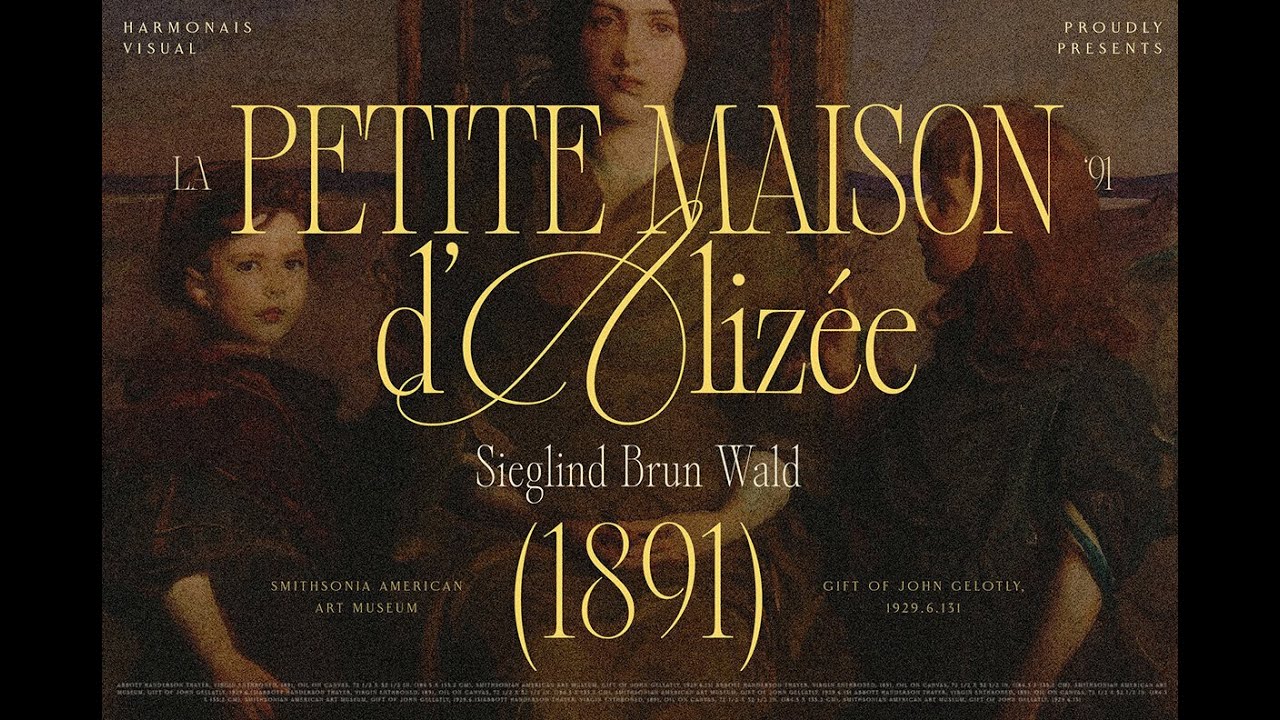
Hv Alizee Regular Font Truetype Youworkforthem This unique blend of styles infuses every design with an added touch of sophistication. ideal for branding initiatives, editorial designs, and social media content, alizée offers versatility in its three styles: regular, petite, and grande. Design professionals often gravitate toward font types that possess adaptability. alizée, available at youworkforthem, is a veritable example of such typefaces. it comes in three distinct styles – regular, petite, and grande – each holding its own against various design applications.
Hv Alizee Petite Font Truetype Youworkforthem Unveiling alizée: where calligraphy meets serif. this blend offers vintage charm, lending an air of sophistication to designs. ideal for branding, editorial work, and social media. explore its styles regular, petite, and grande, each with a unique aesthetic twist. download today at youworkforthem. #fonts #typeface #canva #photoshop #typography. This unique blend of styles infuses every design with an added touch of sophistication. ideal for branding initiatives, editorial designs, and social media content, alizée offers versatility in its three styles: regular, petite, and grande. Meet alizée, a delicately crafted font, a cross pollination of calligraphy and serif styles, served on a platter of vintage elegance. it will make your designs feel like they were dipped in a sunday afternoon cup of nostalgia. got your interest piqued? download at youworkforthem and start your love affair with alizée now. Designed and published by harmonais visual, the alizée typeface is an elegant blend of calligraphy and serif design. this elegant hybrid typeface channels vintage aesthetics with a modern twist, making it an outstanding choice for designers seeking sophistication and versatility.
Hv Alizee Petite Font Opentype Youworkforthem Meet alizée, a delicately crafted font, a cross pollination of calligraphy and serif styles, served on a platter of vintage elegance. it will make your designs feel like they were dipped in a sunday afternoon cup of nostalgia. got your interest piqued? download at youworkforthem and start your love affair with alizée now. Designed and published by harmonais visual, the alizée typeface is an elegant blend of calligraphy and serif design. this elegant hybrid typeface channels vintage aesthetics with a modern twist, making it an outstanding choice for designers seeking sophistication and versatility. The youworkforthem collection spans serif, script, display, handwriting, variable, and specialty styles in desktop and web font formats. clear one time licensing, instant downloads, no subscriptions. This luxury script and timeless serif are perfectly designed for one another not only are they strong standalone fonts, but will pair beautifully when placed side by side. This unique blend of styles infuses every design with an added touch of sophistication. ideal for branding initiatives, editorial designs, and social media content, alizée offers versatility in its three styles: regular, petite, and grande. The surgena font family by digitype studio, crafted by yusuf niky syahroni, is a modern sans serif typeface that harmoniously blends minimalist elegance with precise geometric forms.
Alizee Font Youworkforthem This unique blend of styles infuses every design with an added touch of sophistication. ideal for branding initiatives, editorial designs, and social media content, alizée offers versatility in its three styles: regular, petite, and grande. The surgena font family by digitype studio, crafted by yusuf niky syahroni, is a modern sans serif typeface that harmoniously blends minimalist elegance with precise geometric forms.